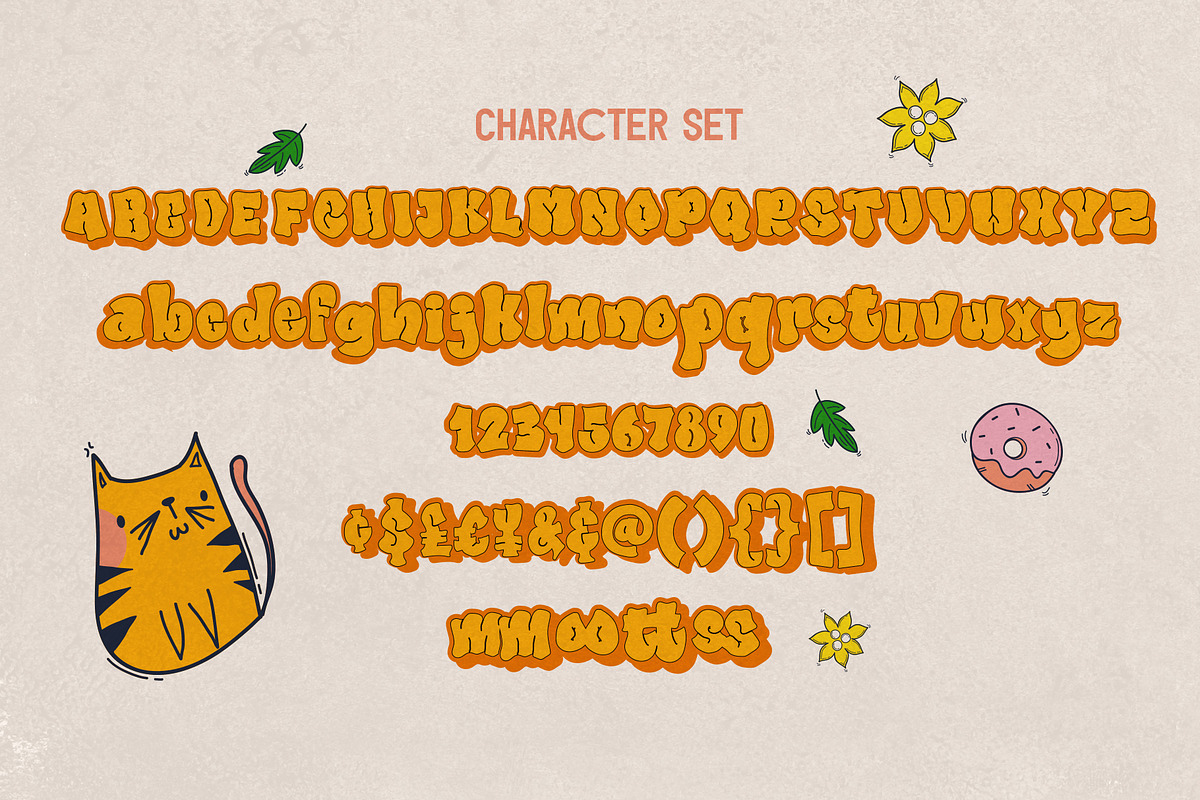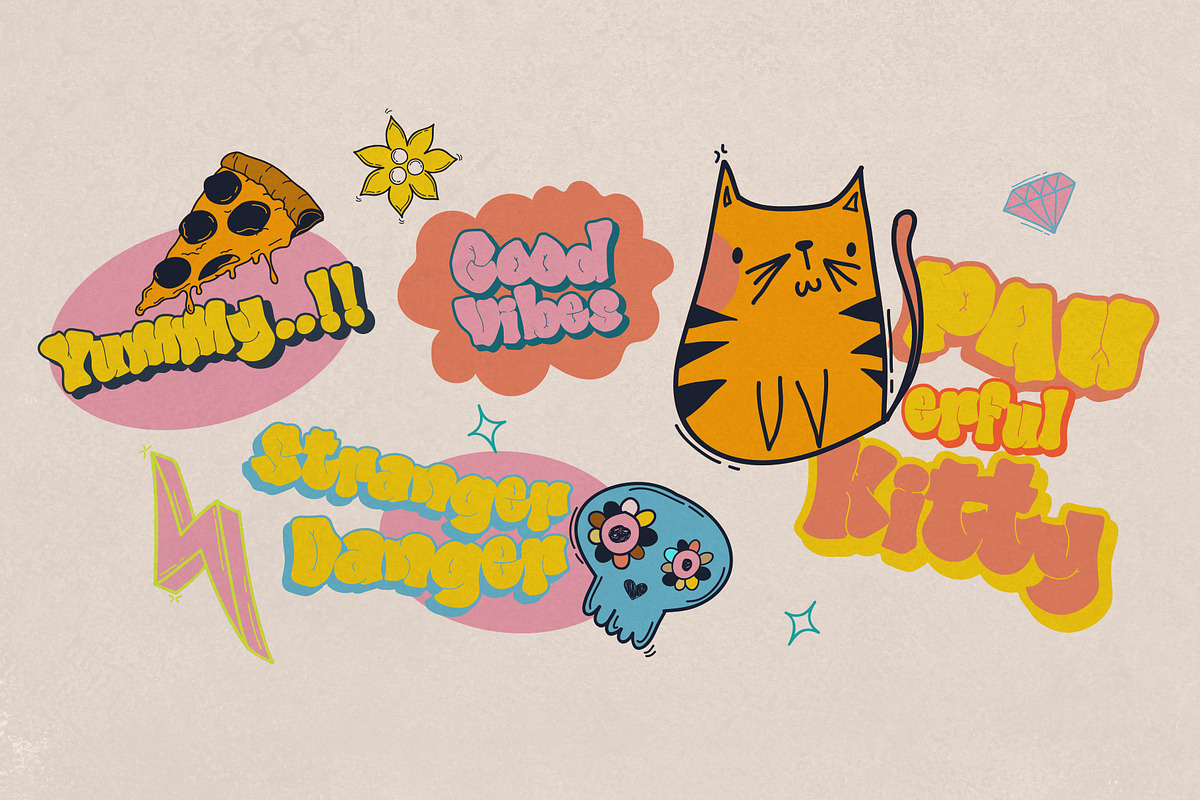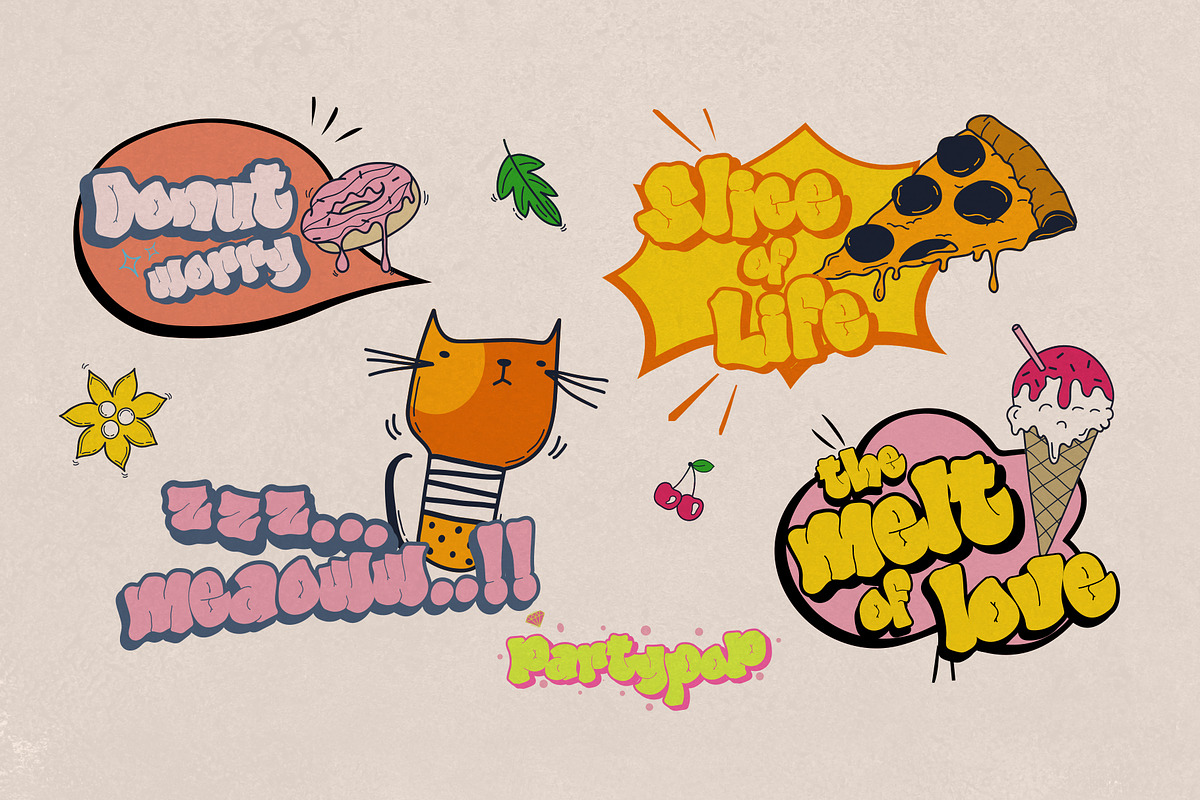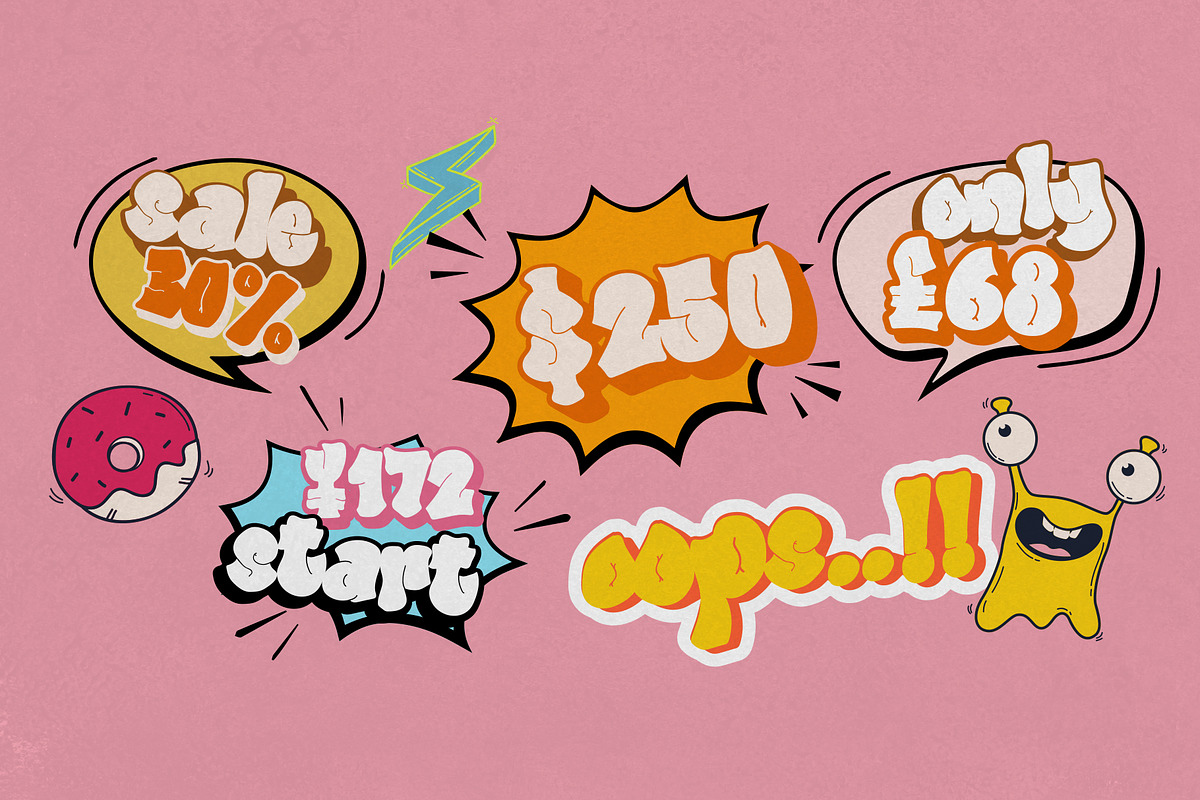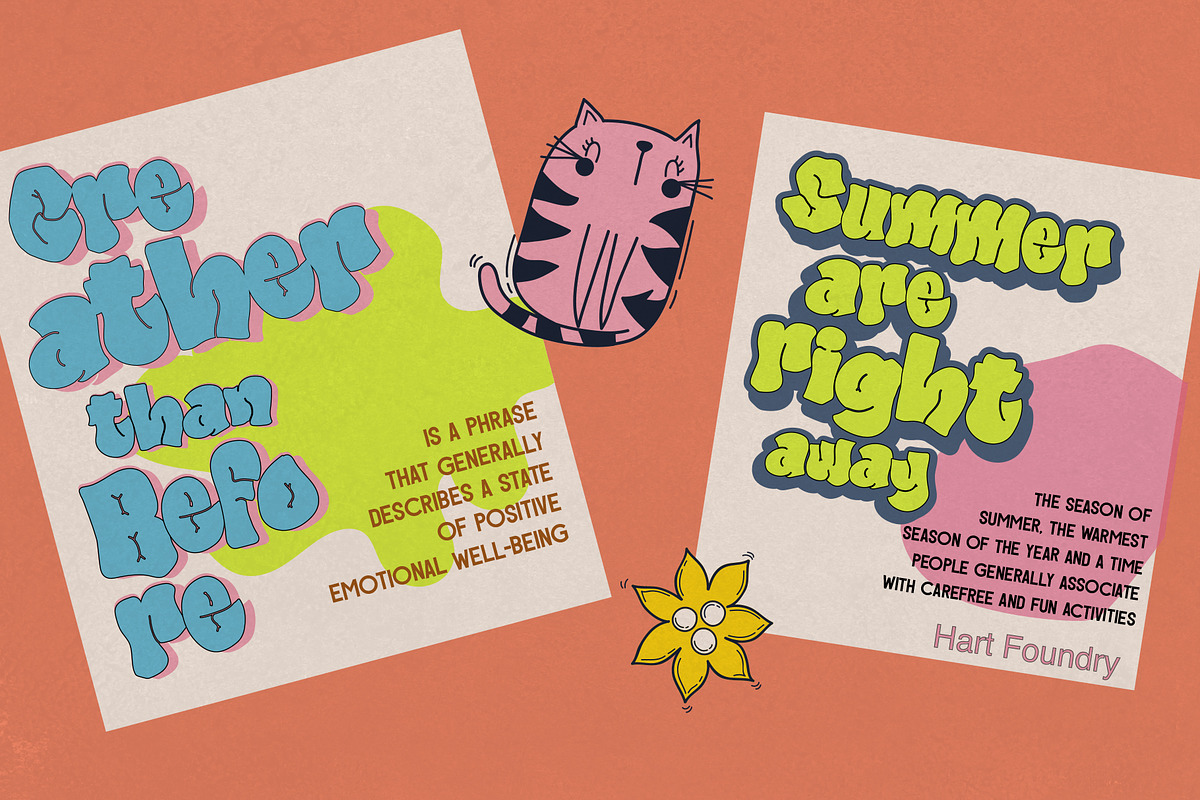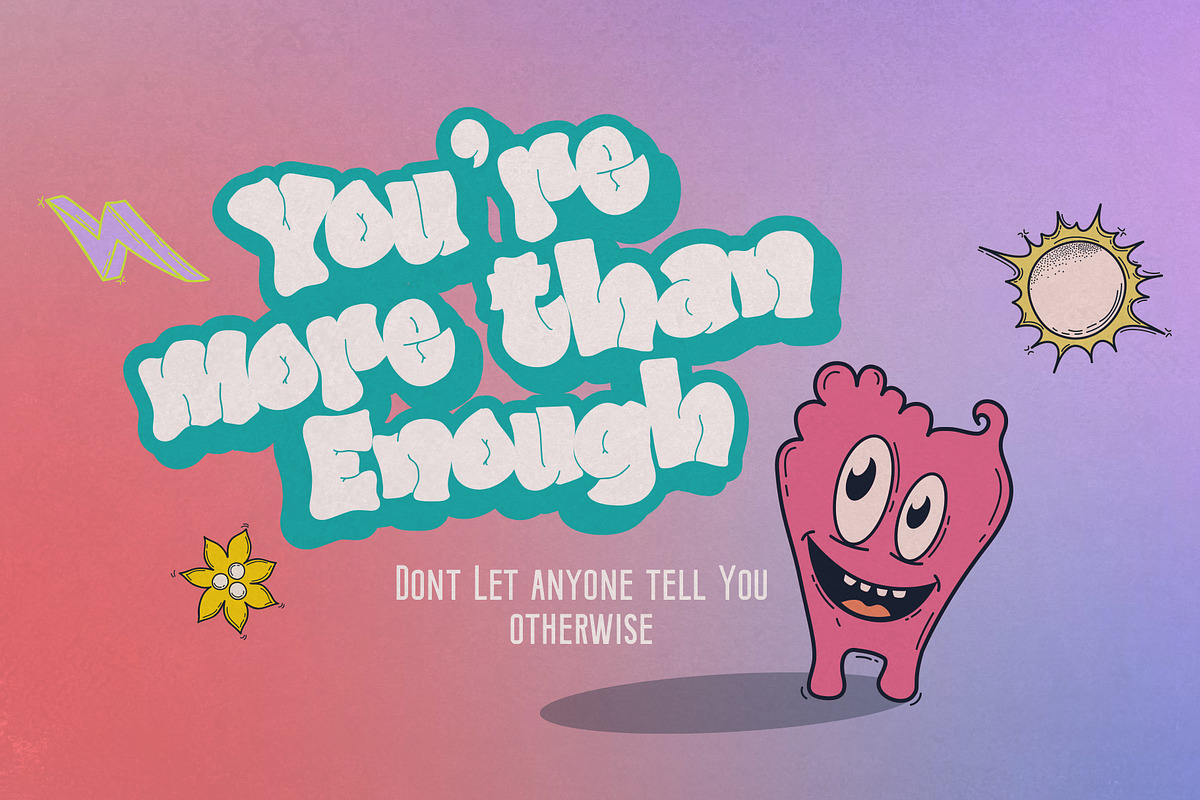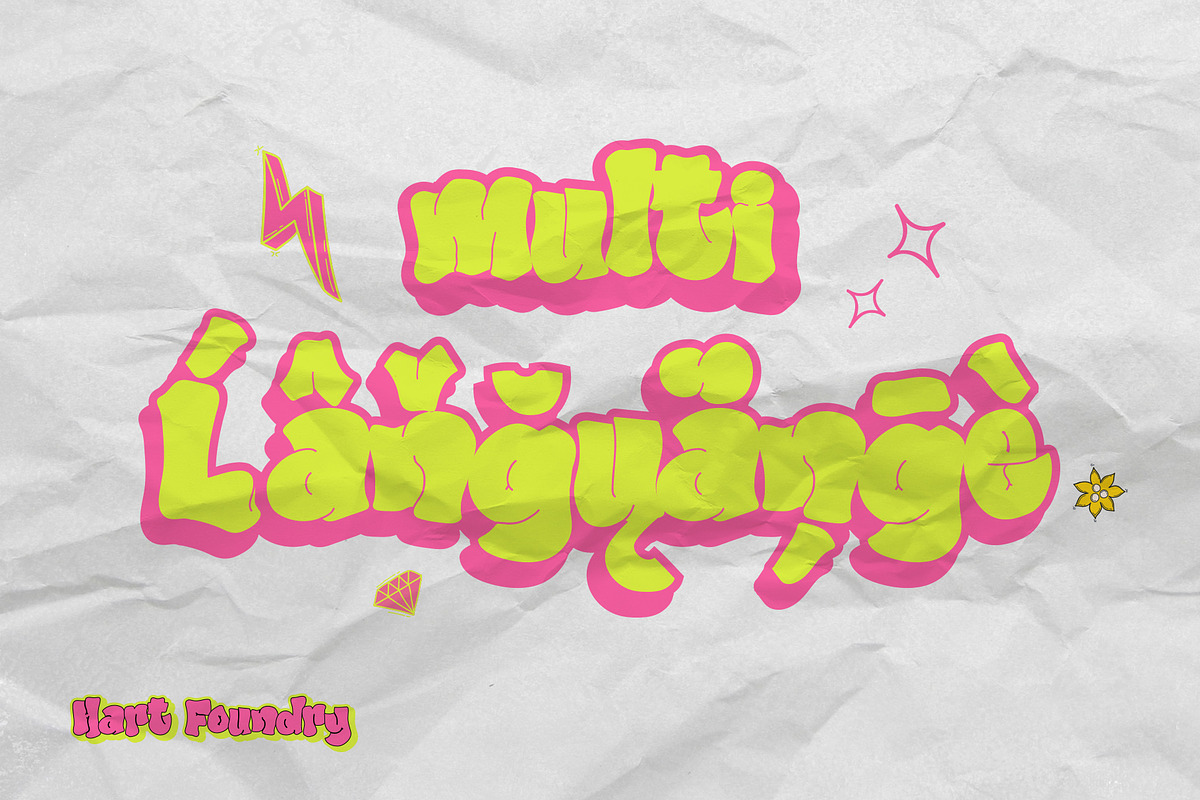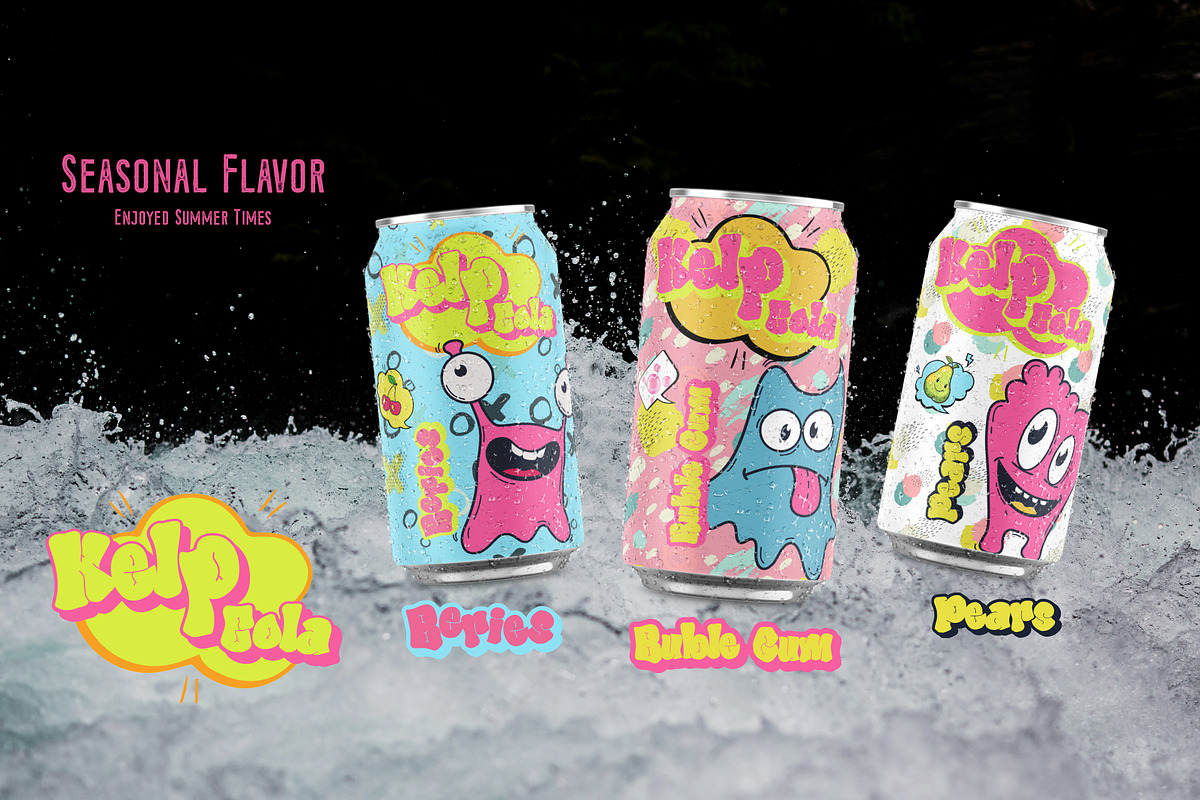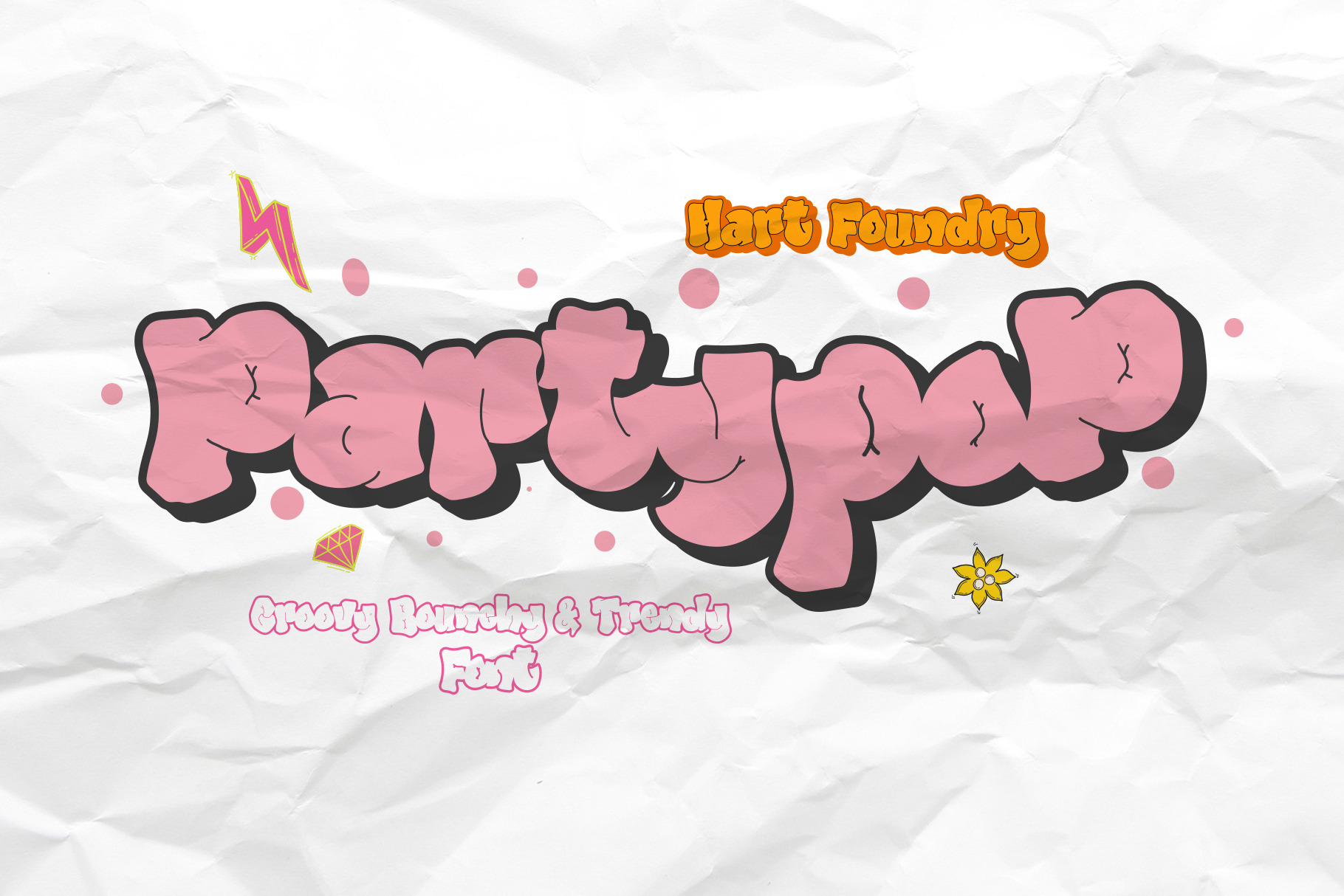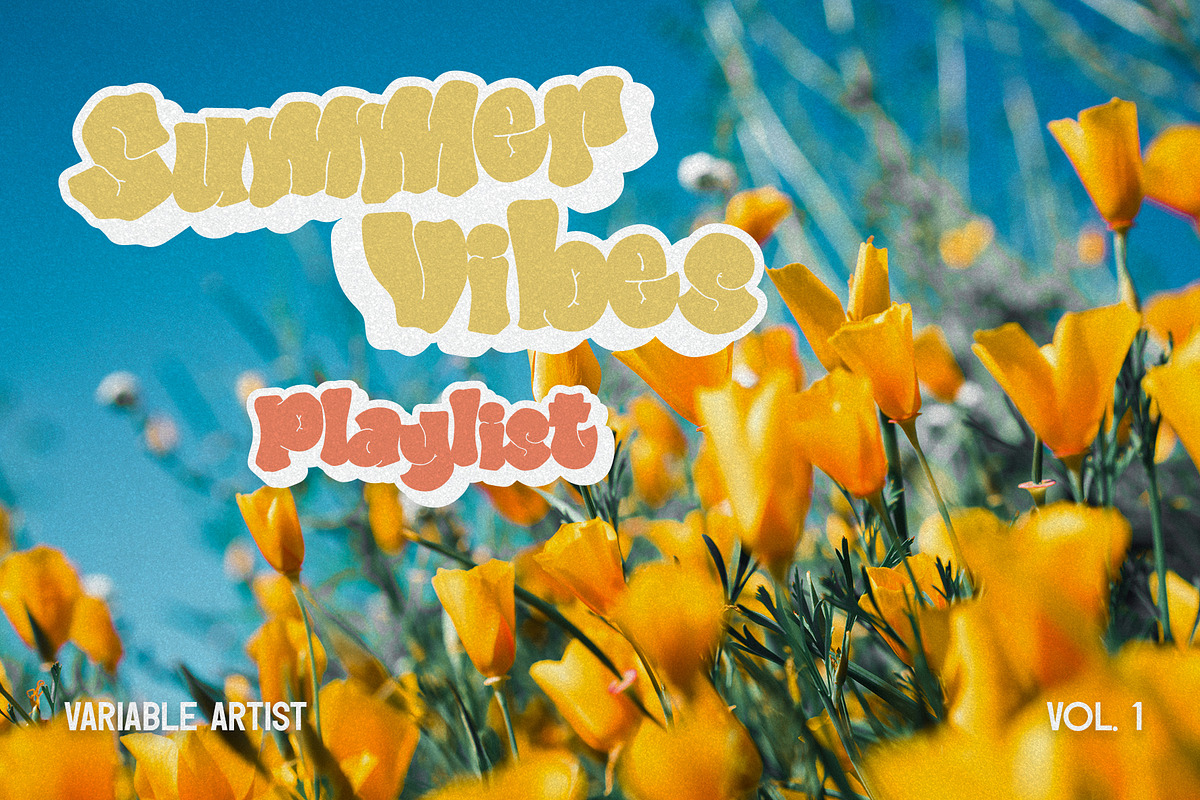
Party Pop, Bubble font
Party Pop, This is a hand-lettered font I made for optimum kookiness. It's oddly bubbly and woefully wonderful. This fonts looks great for logos, quotes, art, signs, titles, and a handmade touch. Enjoy!
What's in the font? Uppercase and lowercase Letters Aa-Zz! Numbers! Symbols! Punctuation! (see slides)